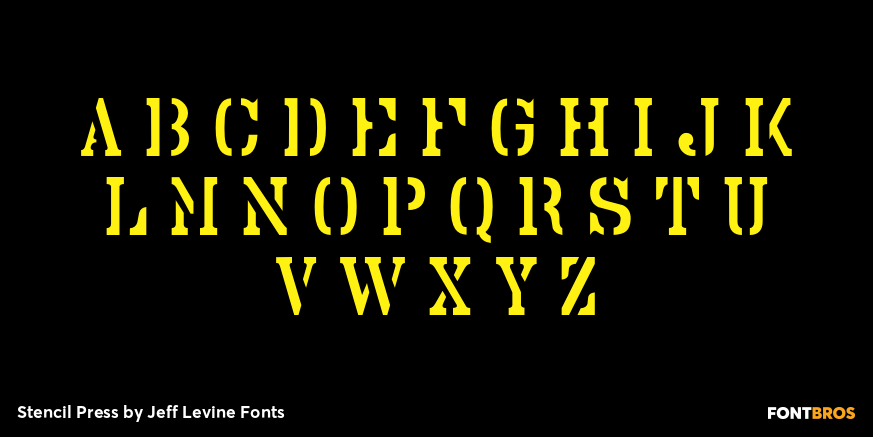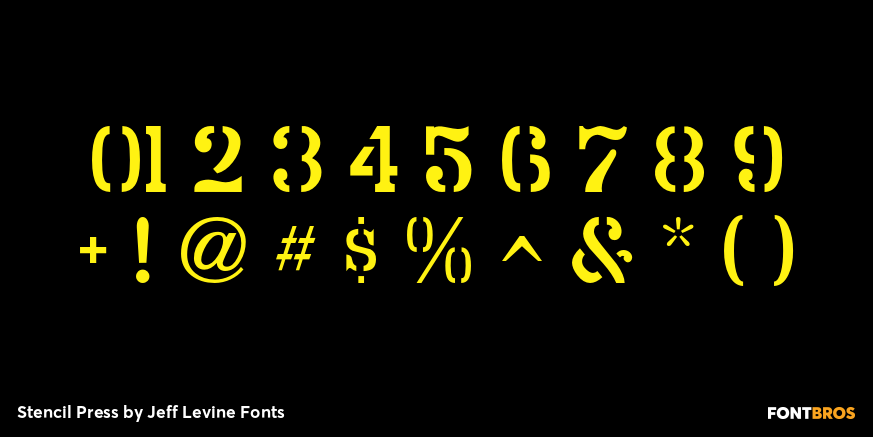
Stencil Press
Stencil Press JNL was based on just a few existing sample punches from a 1920s stencil machine made by the Diagraph-Bradley® company. Thanks to Neal Haynes at Diagraph® for the samples and the ability to preserve this design in digital format.